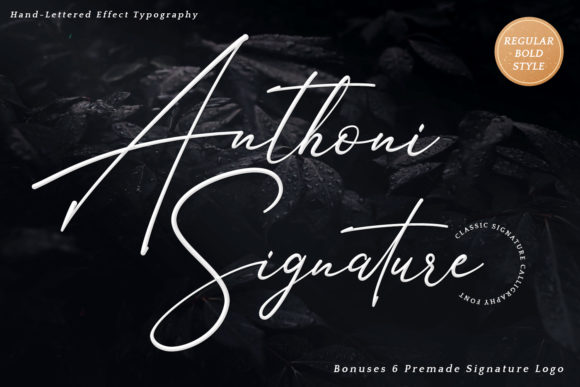
The Elusive Perfect Font: My Journey with Anthoni Signature
I’ll never forget the time I was working on a branding project for a trendy new coffee shop. My client wanted a font that exuded warmth, sophistication, and a dash of playfulness. Sounds simple, right? But after hours of scrolling through font libraries and trying out different combinations, I was stuck. That’s when I stumbled upon Anthoni Signature – a handwritten signature script that instantly caught my eye.
With its natural, stylish flow, Anthoni Signature seemed like the perfect fit for my project. But I wanted to make sure it was worth the investment. So, I dove deeper into its features, quirks, and uses. And now, I’m excited to share my findings with you!
An Honest Review of Anthoni Signature
• Natural flow: Anthoni Signature has a beautifully organic feel that makes it perfect for adding a personal touch to designs.
• Stylish and sophisticated: This font is perfect for projects that require a bit of elegance and refinement.
• Versatile: Anthoni Signature works well for a wide range of design applications, from branding and packaging to invitations and social media graphics.
• ⚠️ Limited use in small sizes: Anthoni Signature can get a bit lost in smaller font sizes, so it’s best used in larger sizes (16px and up) for maximum impact.
• ⚠️ Not ideal for body text: While Anthoni Signature is stunning as a display font, it’s not the best choice for longer blocks of text.
The Story Behind Anthoni Signature
Anthoni Signature was designed with the intention of capturing the essence of a handwritten signature. The designer aimed to create a font that felt natural, yet stylish and sophisticated. The result is a beautiful script that adds an authentic touch to any design.
Q: What type of projects is Anthoni Signature best suited for?
A: Anthoni Signature is perfect for branding, packaging, invitations, and social media graphics that require a personal touch.
Q: Is Anthoni Signature available in different weights or styles?
A: Anthoni Signature comes in a single weight, but its OpenType features allow for some variation in styling.